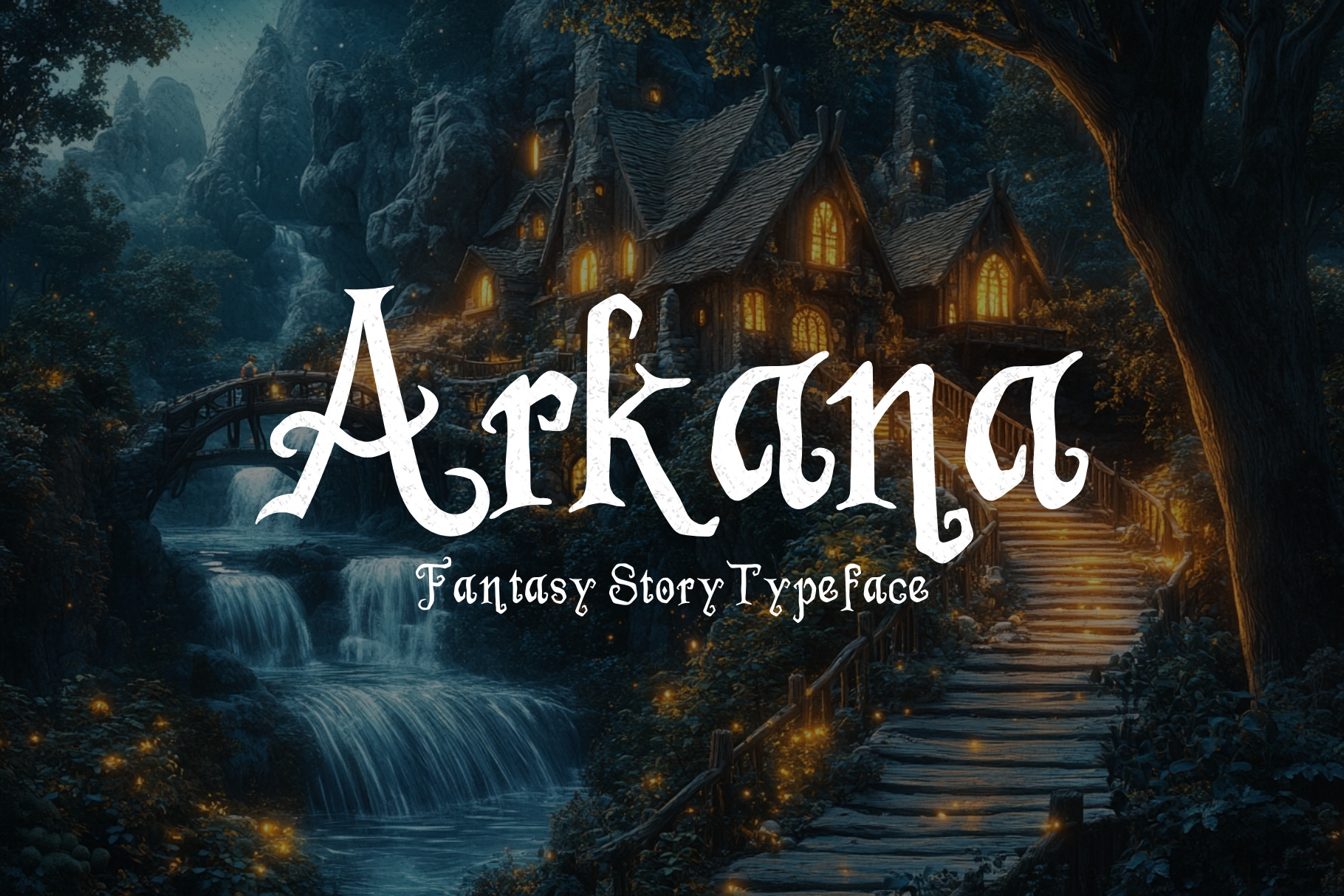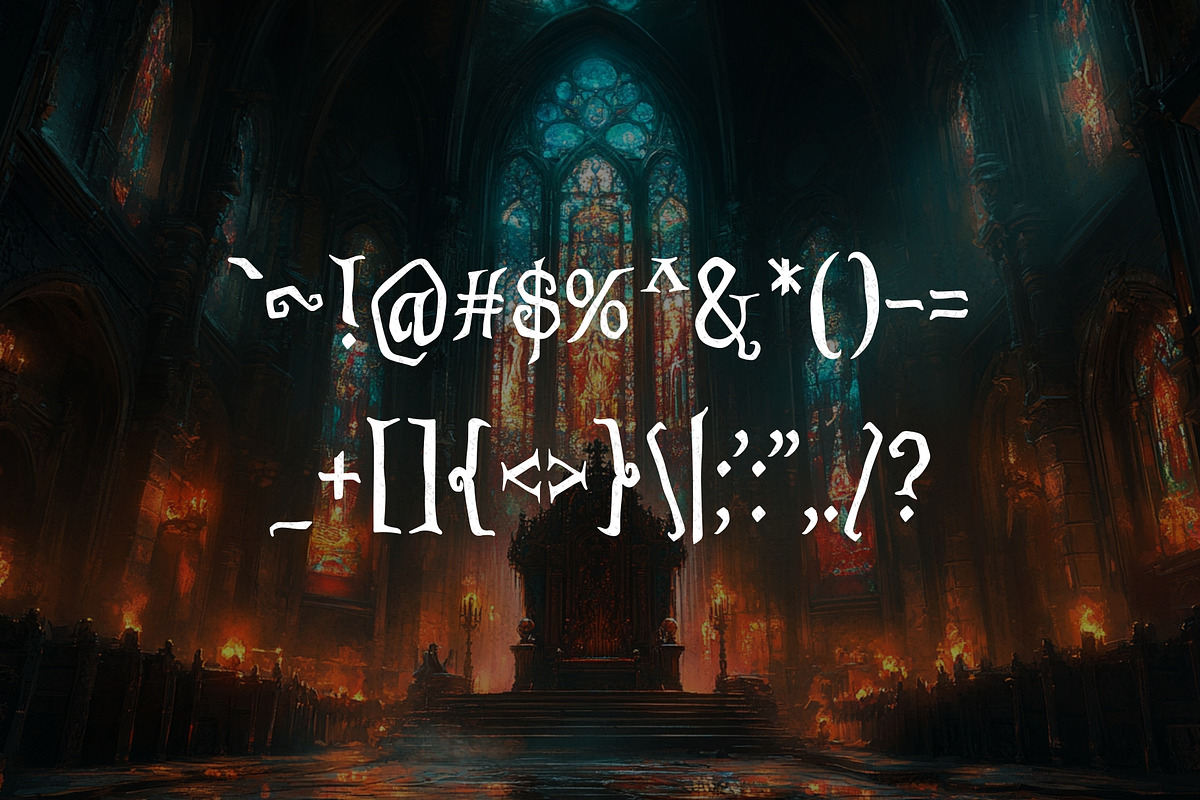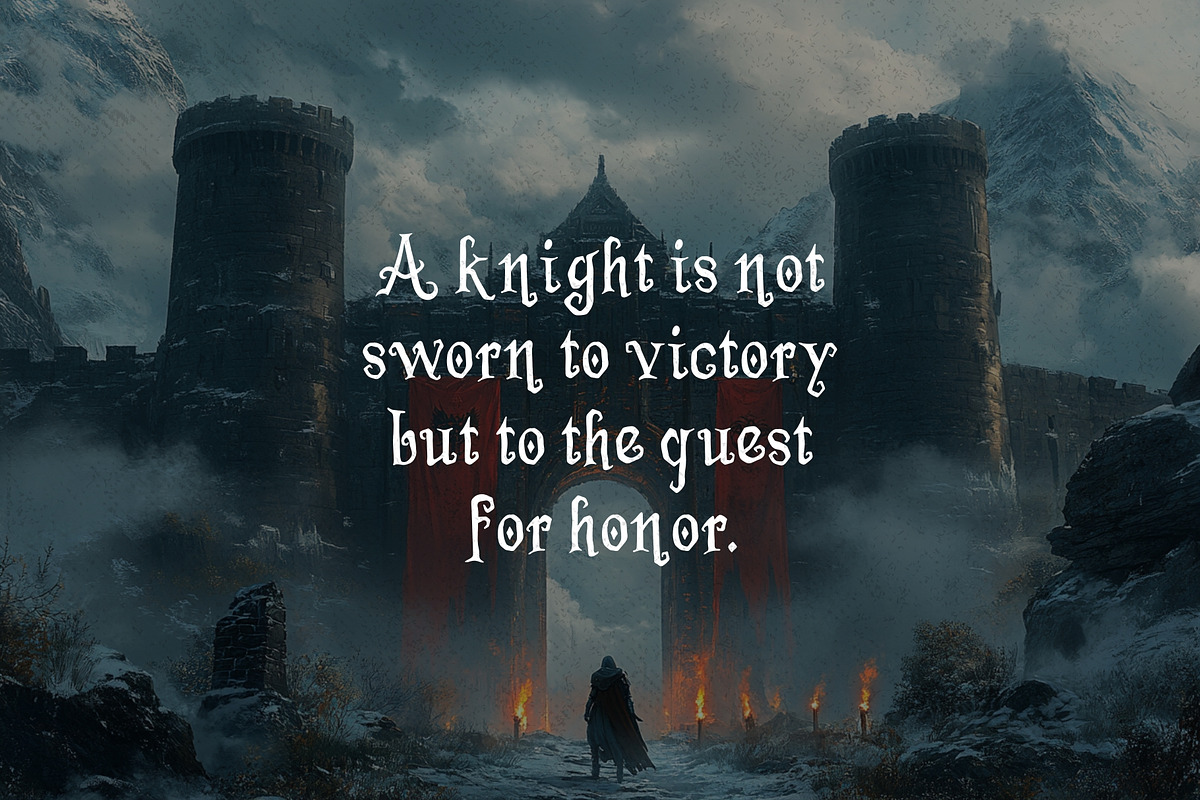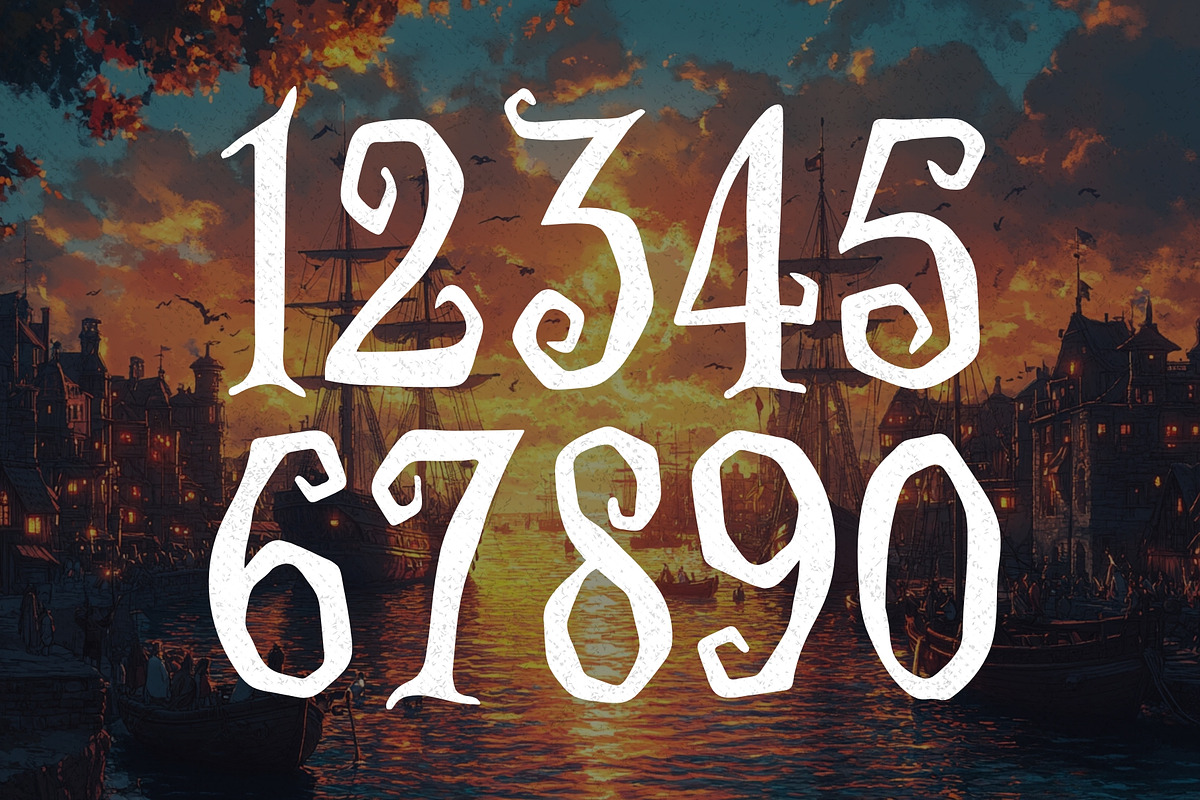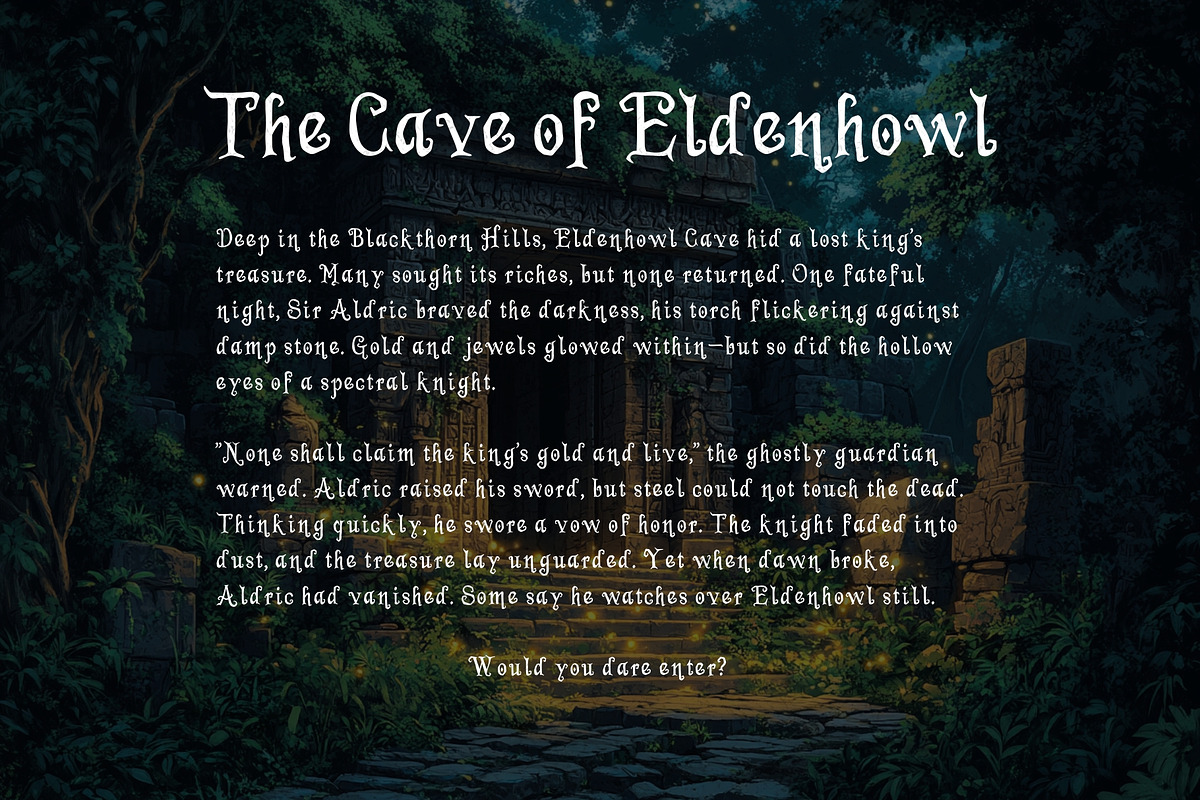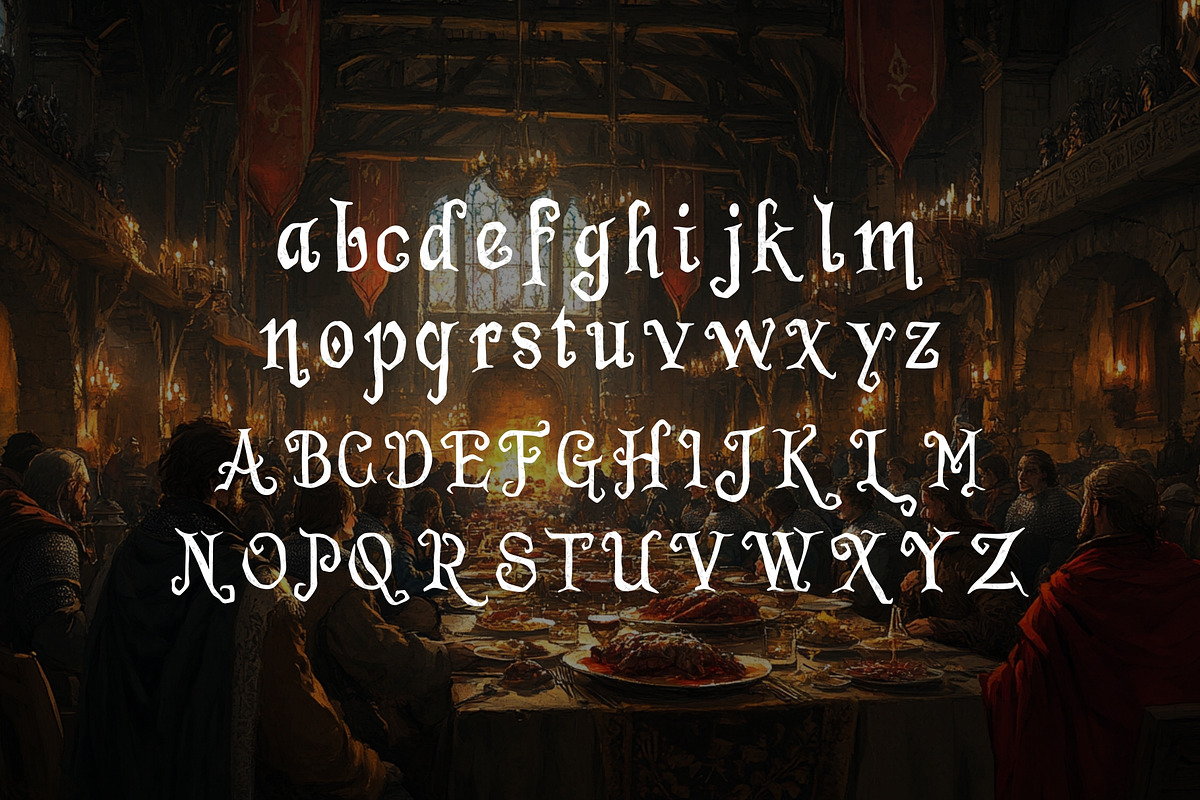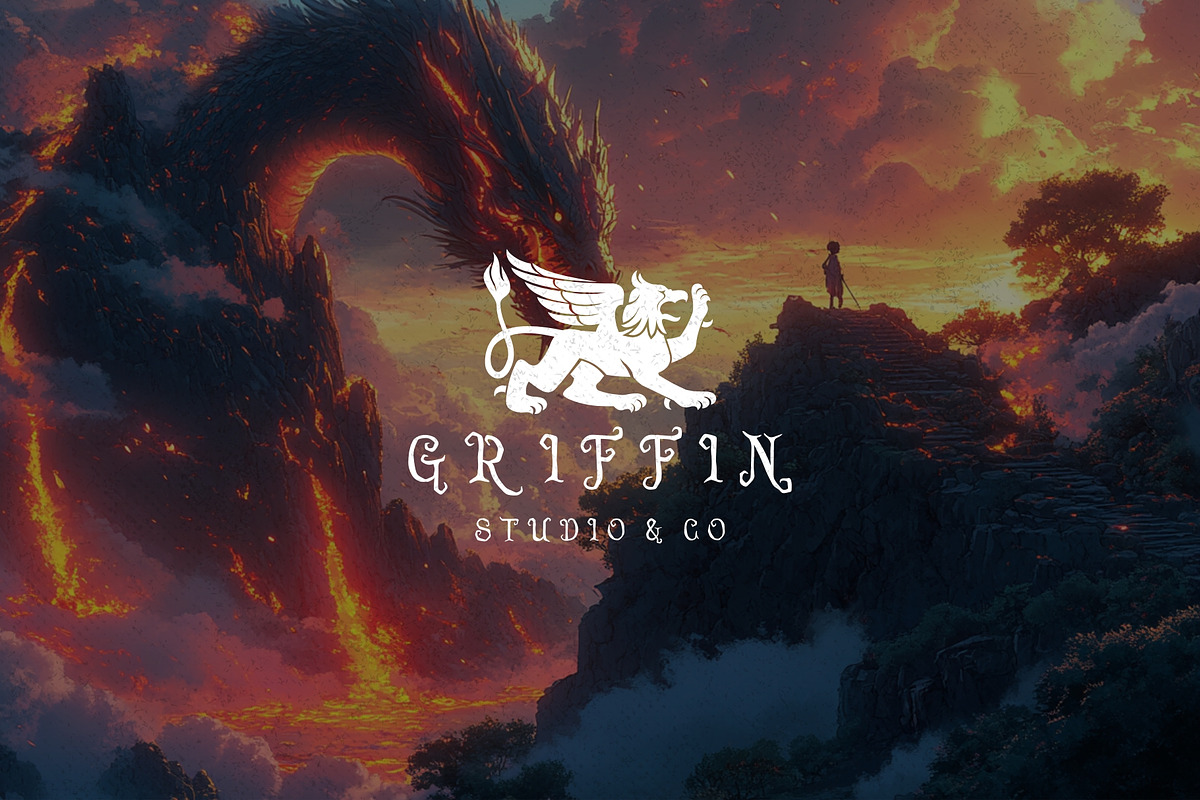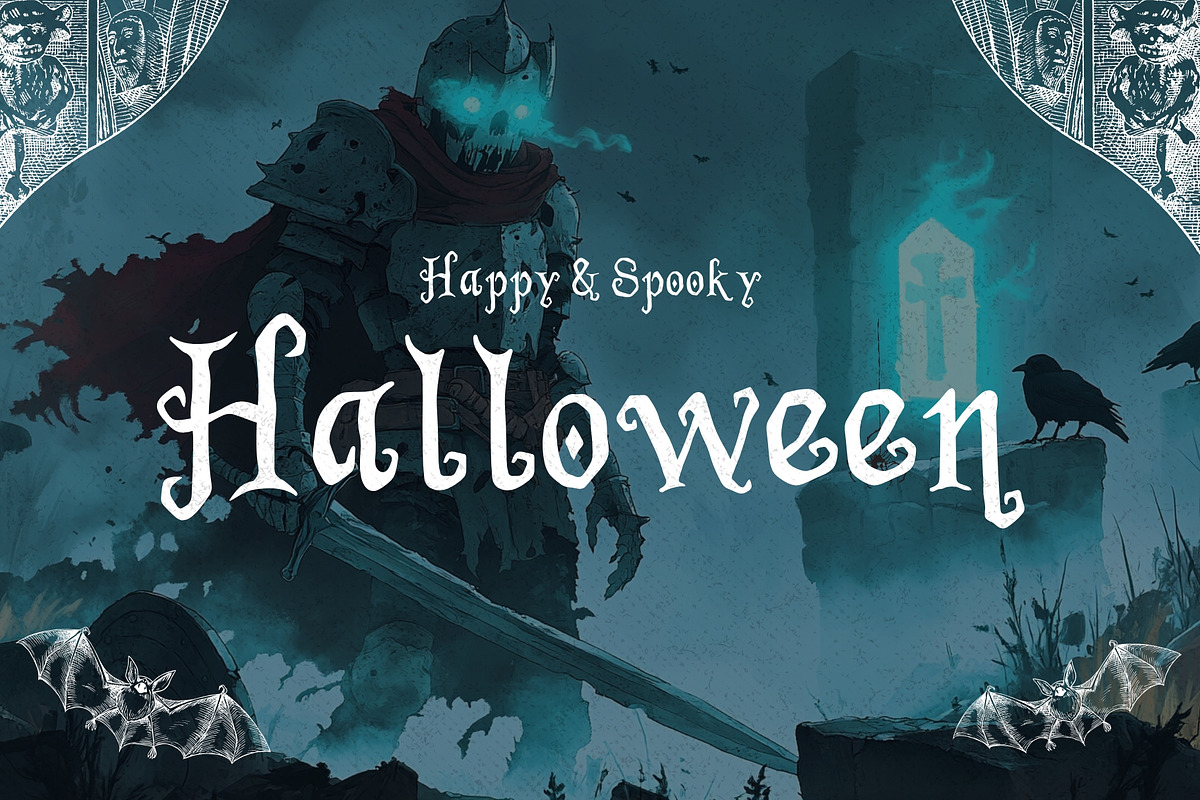
Arkana - Fantasy Typeface
Arkana is a breathtaking fantasy typeface. It includes upper, lowercase, special characters, numbers and punctuation. You can use this font for a variety of projects. It's perfect for books, video games, movies or any other kind of publishing or production in the fantasy genre.
If you're looking to add mystical vibe to your project, then Arkana is for you.